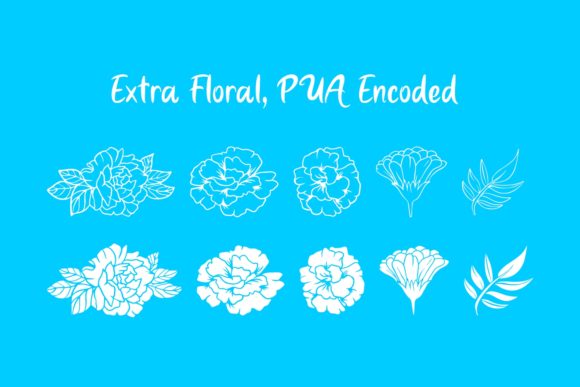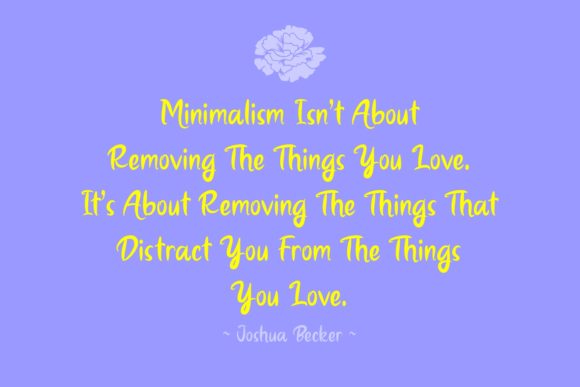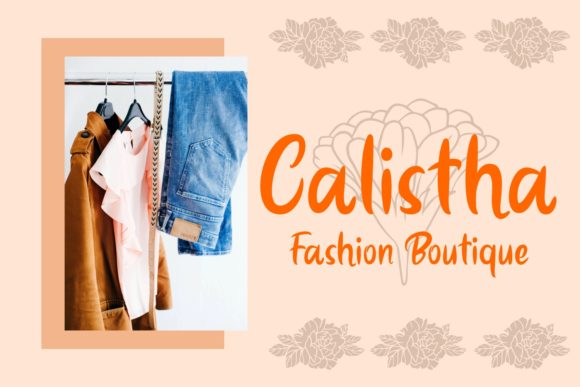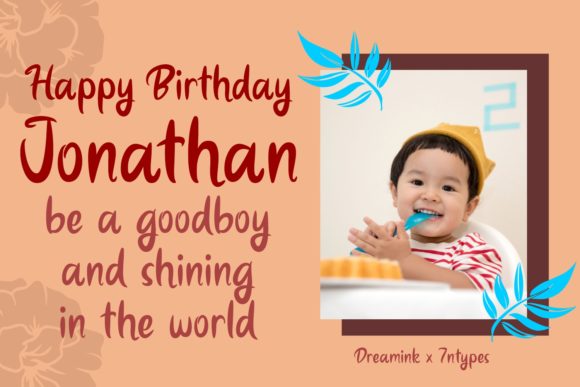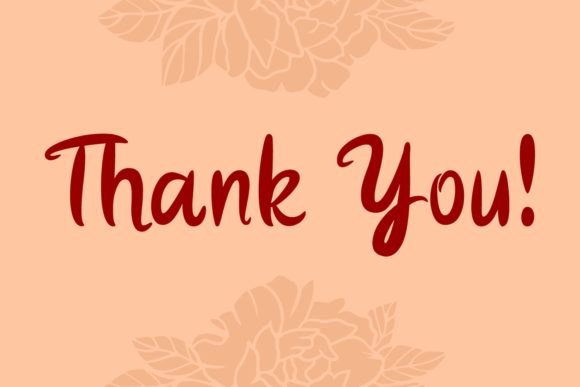
Introduction to Marigolds Font
As you sit down to start a new creative project, there’s nothing quite like the thrill of bringing your ideas to life. But, have you ever found yourself stuck on the perfect font to match your vision? This is where the magic of typography comes in – the right font can make all the difference between a good design and a great one. For designers, finding the perfect font can be a game-changer, elevating their work from ordinary to extraordinary.
Enter Marigolds Font, a stunning handwritten font that’s sure to captivate your imagination. With its elegant, timeless style and friendly feel, Marigolds Font is the perfect design resource for any creative project. Whether you’re working on a blog post, a social media campaign, or a high-quality print design, this beautiful font is sure to add a touch of sophistication and class.
Key Features of Marigolds Font
- Unique, hand-drawn design for creative projects, ideal as a design resource.
- High-quality font with a transparent background, perfect for digital designs and print materials.
- Includes a range of weights and styles, allowing for versatility in your design and creative project.
- Designed with precision at 300 DPI resolution for crisp, high-quality output.
- Perfect for use in logos, branding materials, and other creative projects where a unique, eye-catching font is desired.
Honest Review: Marigolds Font
As a designer, I’m always on the lookout for high-quality design resources to elevate my creative projects. The Marigolds Font is one such resource that caught my attention.
What works well is the font’s unique blend of elegance and whimsy, making it perfect for projects that require a touch of sophistication and playfulness. The font is also highly versatile, suitable for use in a variety of contexts, from logos and branding to typography and editorial design.
- ✨ High-quality design with intricate details
- ✨ Unique and versatile font suitable for various design projects
- ✨ Includes a transparent background option for seamless integration
Tips for Getting the Most Out of Marigolds Font
Use Marigolds Font for creative projects that require a high-quality, transparent background.
Experiment with different font sizes and colors to achieve the desired look.
Combine Marigolds Font with other design elements to create a unique and eye-catching design.
Common Use Cases for Marigolds Font
Marigolds Font is commonly used for:
Branding and marketing materials
Photography and graphic design projects
Alternatives to Marigolds Font
Great Vibes Font is a beautiful, elegant script font perfect for creative projects that require a touch of sophistication. It features a transparent background, making it ideal for use on dark-colored backgrounds. This font is a great choice for designers who want to add a high-quality, handwritten feel to their designs.
Comparison to Marigolds Font: Great Vibes Font has a more refined and elegant feel compared to Marigolds Font, which is more playful and whimsical. Great Vibes Font is ideal for use in formal and professional settings, while Marigolds Font is better suited for more casual and creative projects.
Carolyna Pro Font is a modern, elegant script font designed for use in a variety of creative projects. It features a high-quality design with a transparent background, making it perfect for use on dark-colored backgrounds. This font is a great choice for designers who want to add a touch of sophistication and elegance to their designs.